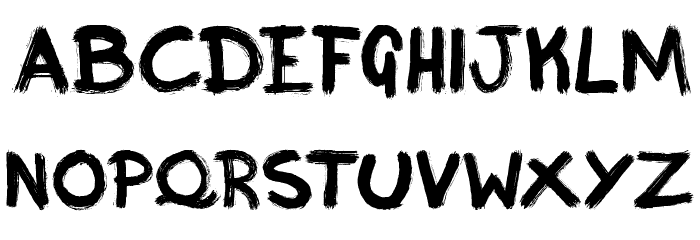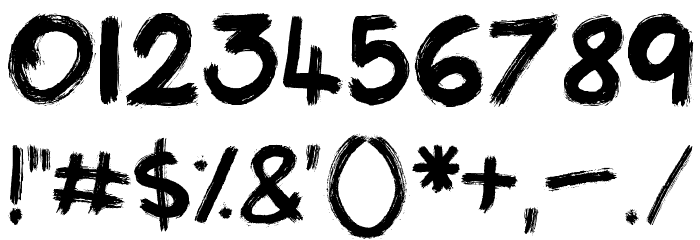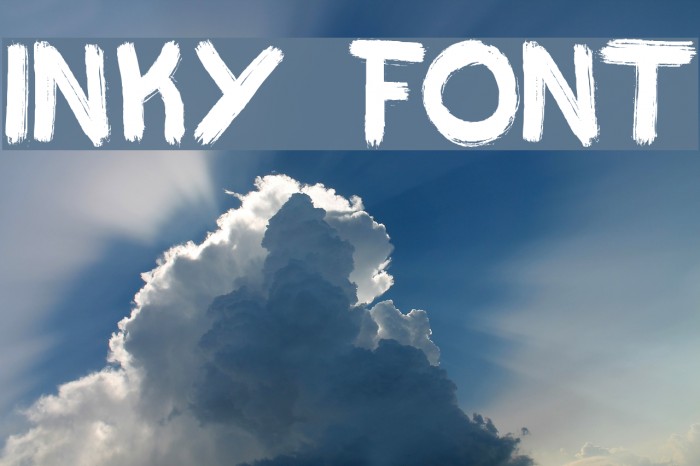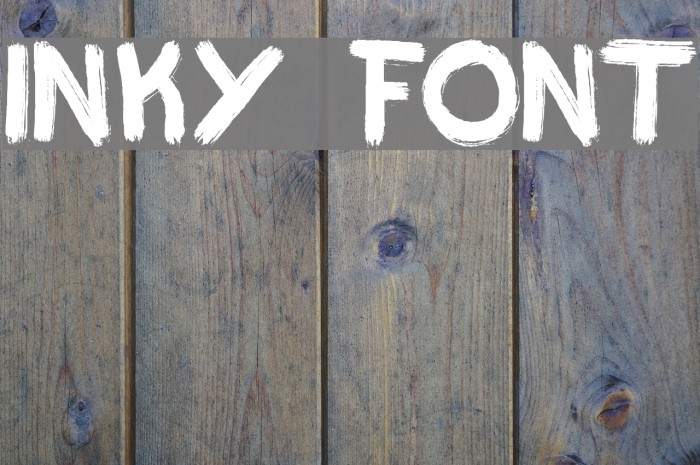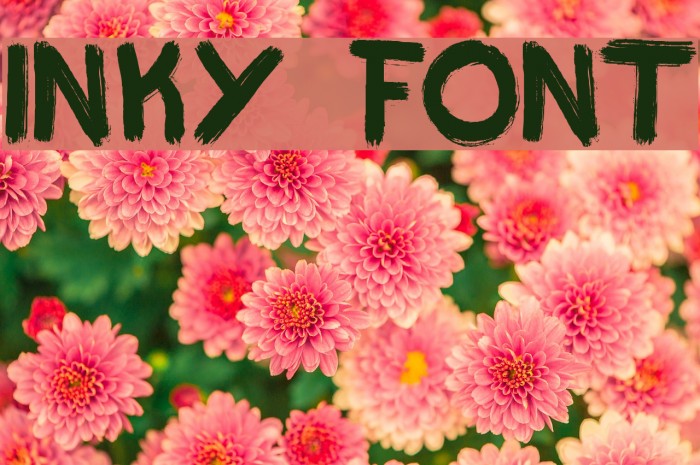
Inky Font
This font features a bold, brush-stroke style that gives it a dynamic and energetic appearance. The characters are crafted with a rough, textured edge, reminiscent of hand-painted lettering. Each letter has a unique, slightly irregular form, adding to the font's organic and artistic feel. The uppercase and lowercase letters maintain a consistent style, with a playful yet assertive presence. Numbers and special characters are equally bold and expressive, making them stand out. This font is ideal for projects that require a creative and informal touch, such as posters, artistic branding, or any design that seeks to convey a sense of movement and creativity.
A bold, brush-stroke style font with a dynamic and artistic appearance.
- Proposed Projects: Ideal for posters, artistic branding, and creative designs needing a dynamic touch.